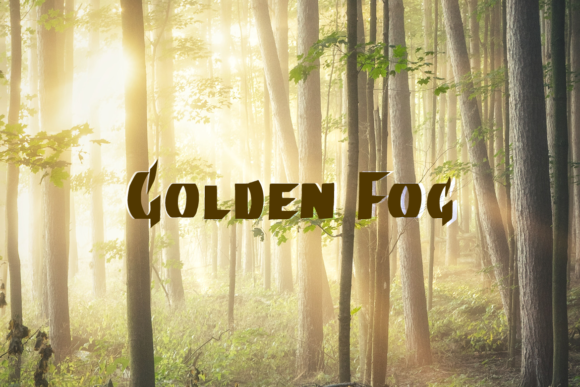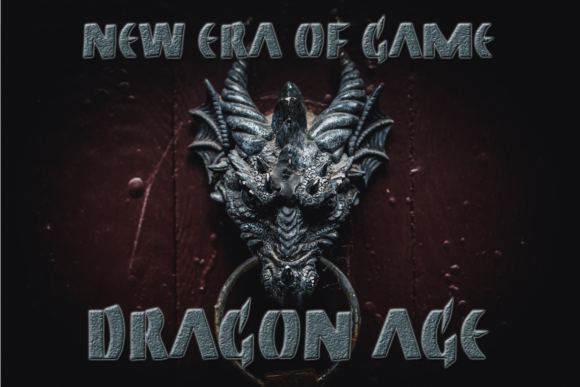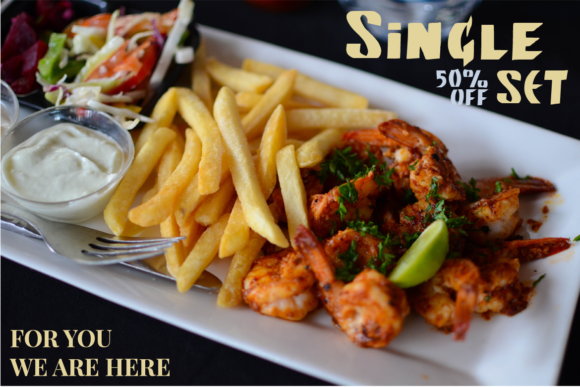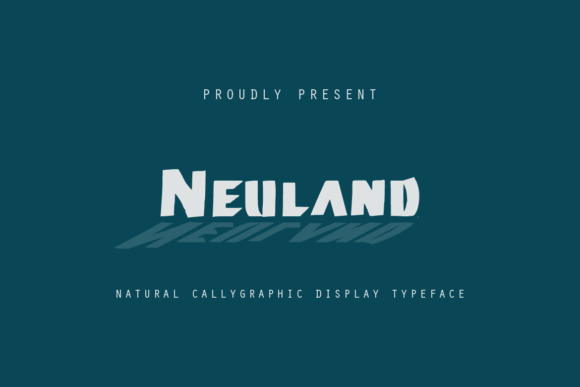
Introduction to Neuland Font
Neuland is a cool, fun and thick lettered looking display font.
Whatever the topic, this font will be a wonderful asset to your font library, as it has the potential to enhance any creation .
Key Features of Neuland Font
Why Choose Neuland Font?
Neuland Font offers exceptional quality and versatility, making it a valuable addition to your design toolkit. Whether you’re creating for personal projects or commercial use, Neuland Font delivers professional results.